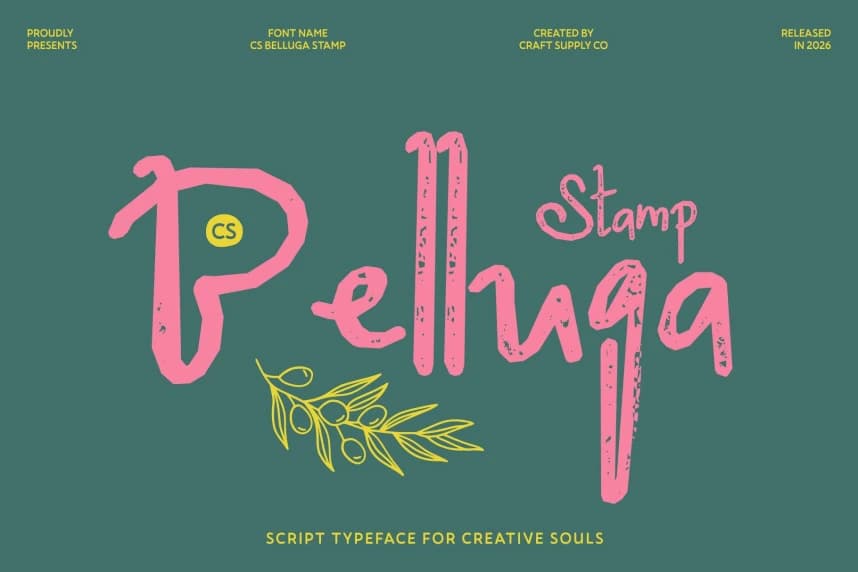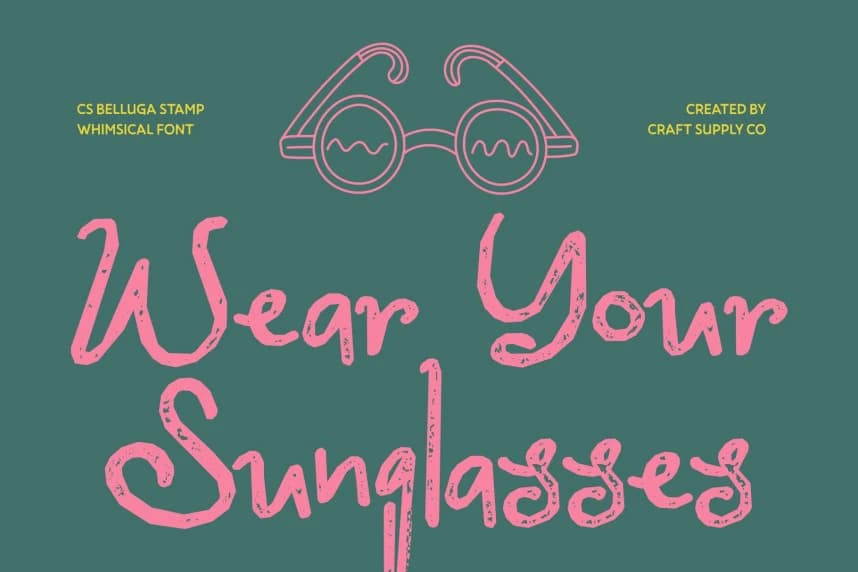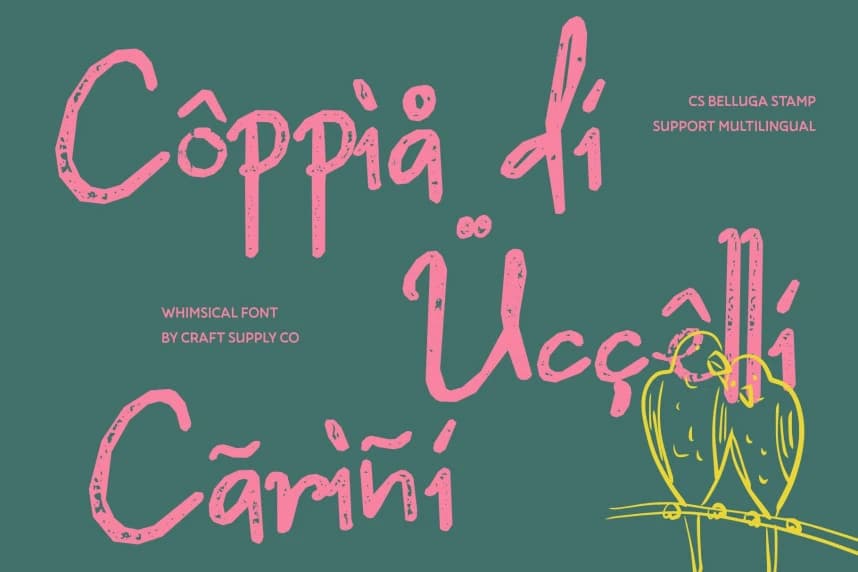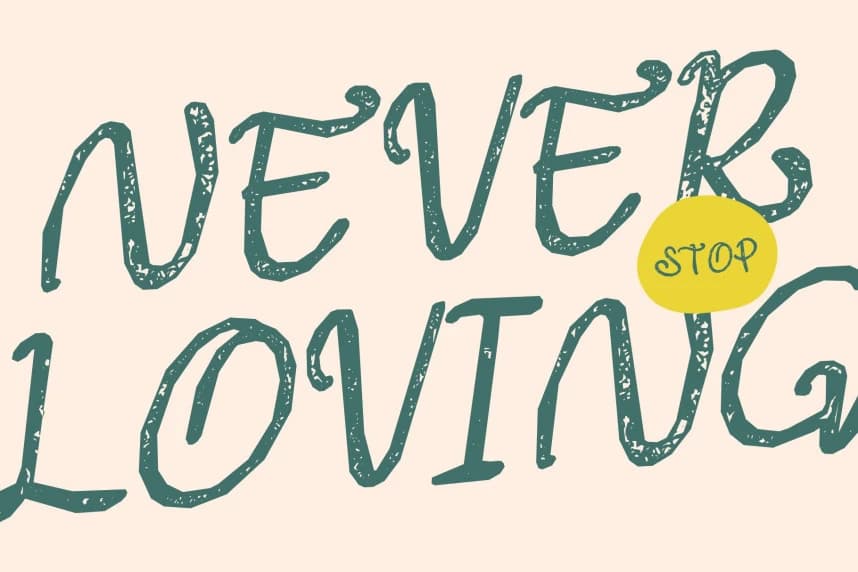
CS Belluga Stamp Font – Whimsical Beauty with a Playful Heart Graceful Whimsy with a Stamped Touch. This is a beautiful handwritten whimsy font enhanced with a subtle stamped texture. Its flowing curves and imaginative forms retain their joyful movement